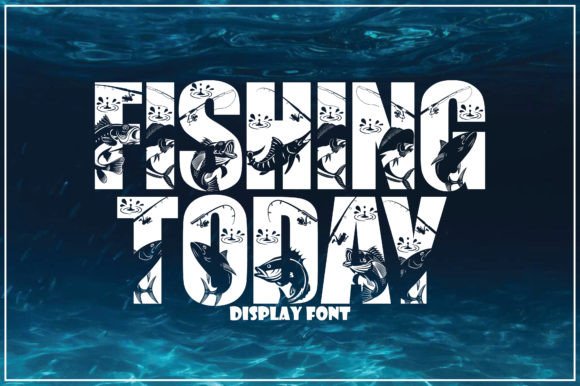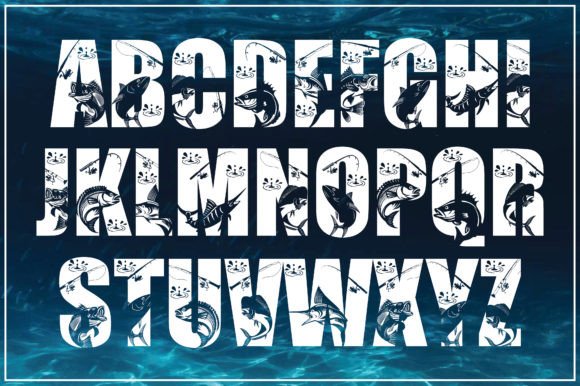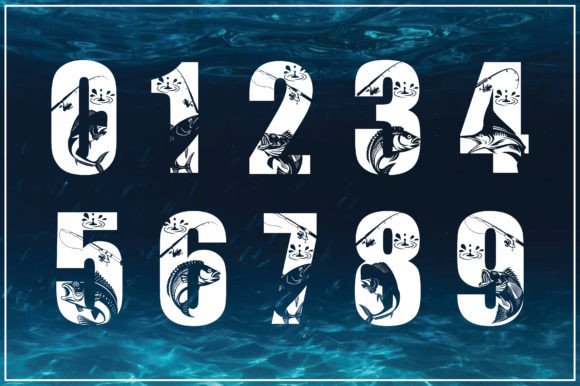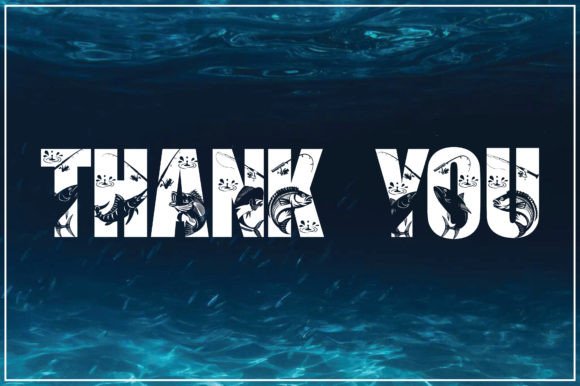
Fishing Today Font
About the Fishing Today Font
The Fishing Today Font offers a perfect balance of form and function for your design needs. FishingToday is a thick lettered and incredibly unique display font. It can be used for various design ideas, particularly those related to children’s games, science, space exploration
FishingToday’s bold, playful character makes it ideal for headlines, posters, and branding projects targeting a younger audience or conveying a sense of fun and adventure. It works exceptionally well for packaging of children’s products, game design, and science-themed projects, reinforcing the existing suggestions. However, its thick letterforms are less suitable for body text or UI elements where readability is paramount. Long paragraphs set in FishingToday would be difficult to read.
Pairing FishingToday effectively requires a contrasting typeface. A clean sans-serif like Open Sans or a minimalist geometric font like Futura would provide a strong counterpoint, creating visual interest and preventing visual overload. For a more playful feel, a rounded sans-serif such as Gill Sans could also work well. Avoid pairing it with other heavily ornamented or decorative typefaces.
The font’s overall personality is energetic and friendly, yet robust. It’s best suited for projects requiring a bold visual statement without sacrificing approachability.
Fishing Today Font Usage Examples
Fishing Today Font Example